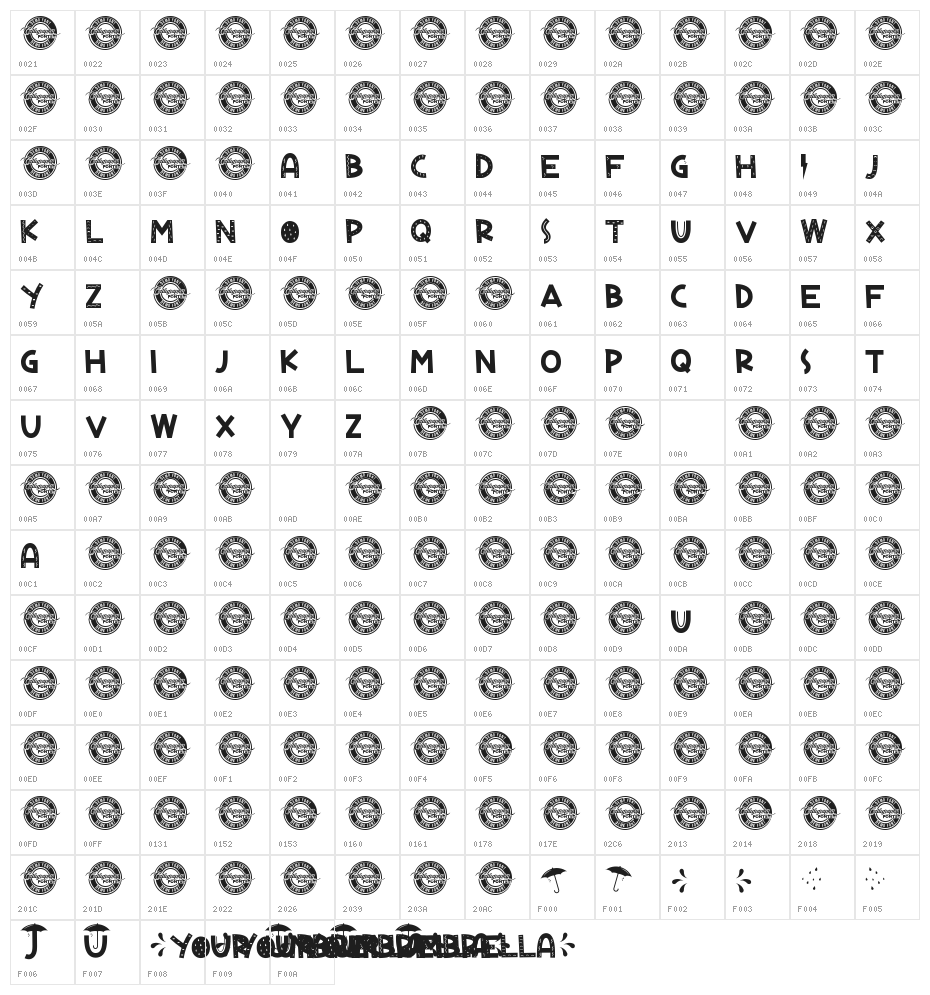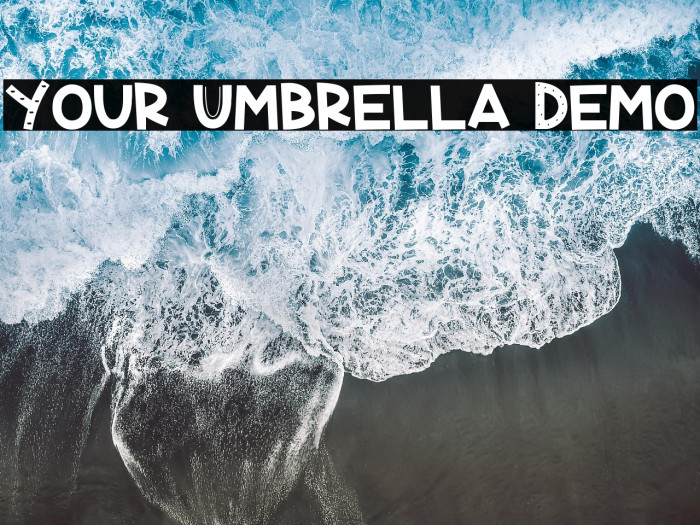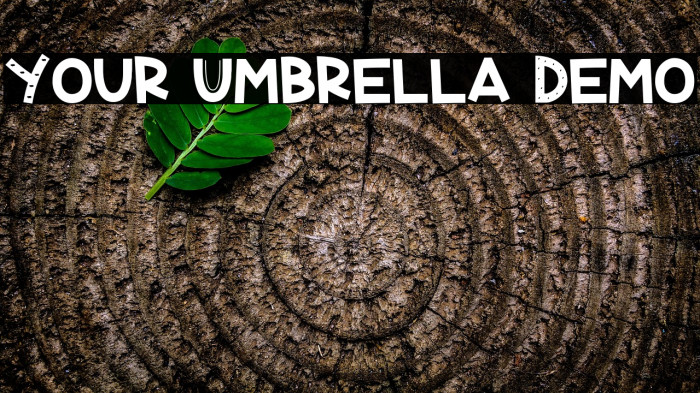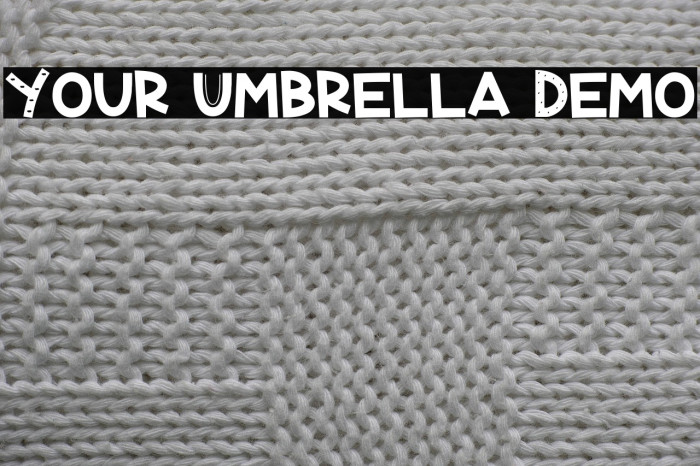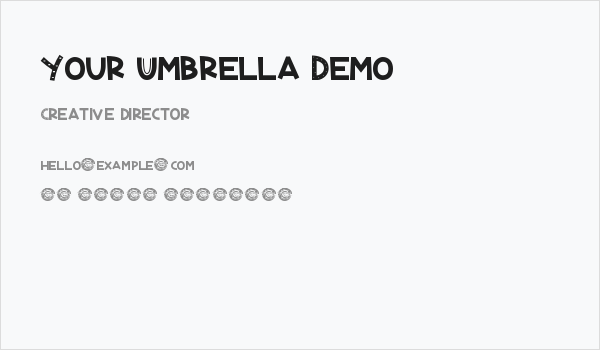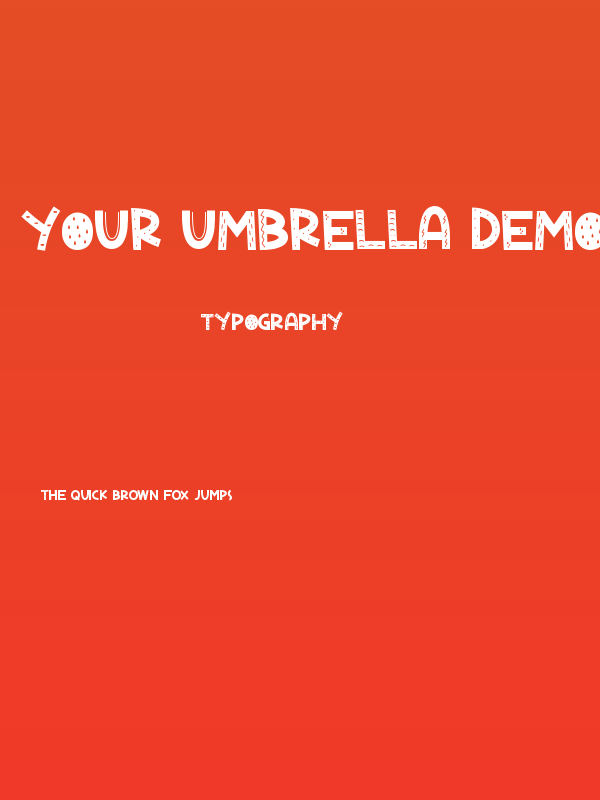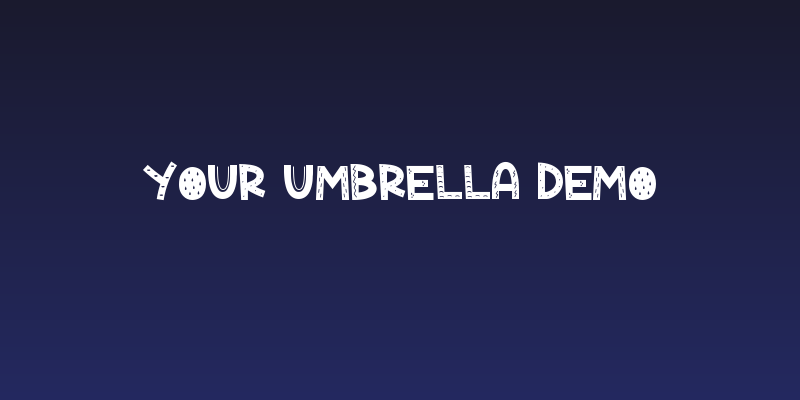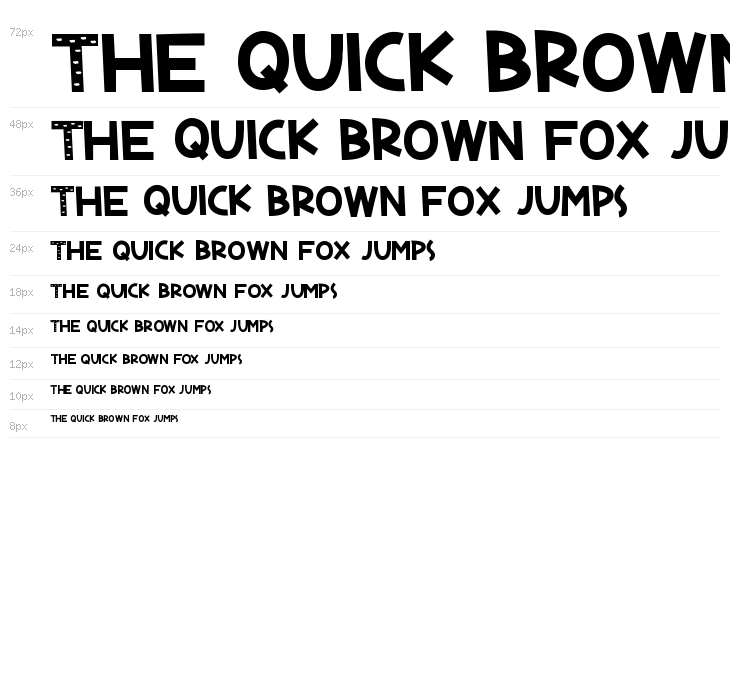
Your Umbrella Demo Font
Your Umbrella Demo Description
This font features a playful and bold design with a decorative flair, making it ideal for creative projects. The uppercase letters are uniquely styled with various patterns and shapes, adding a whimsical touch. The strokes are thick and consistent, providing a strong visual impact. The font maintains a uniform width, ensuring readability while still offering a distinctive appearance. Its decorative elements make it suitable for projects that require a fun and engaging typeface. The overall style is modern with a hint of retro charm, perfect for capturing attention in headlines or logos.
| Proposed Projects | Ideal for children's books, playful branding, posters, and creative advertising campaigns. |